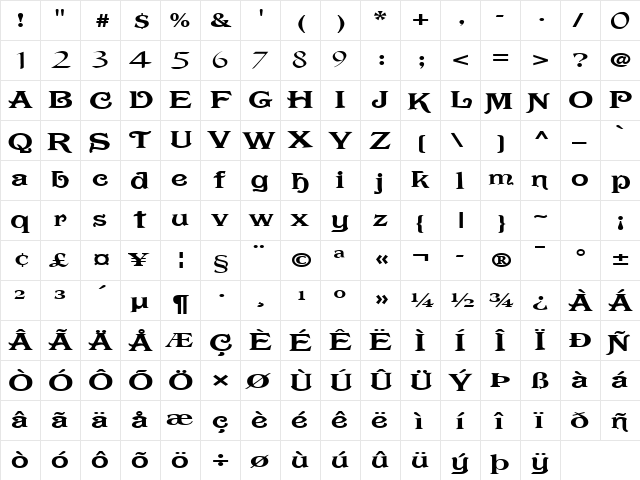
DarkGray50 Regular Font Preview
DarkGray50 Regular
DarkGray50 Regular Font Details
Design Context for DarkGray50 Typeface
DarkGray50 is a composed and adaptable typeface that performs quietly and consistently across a wide range of design contexts.